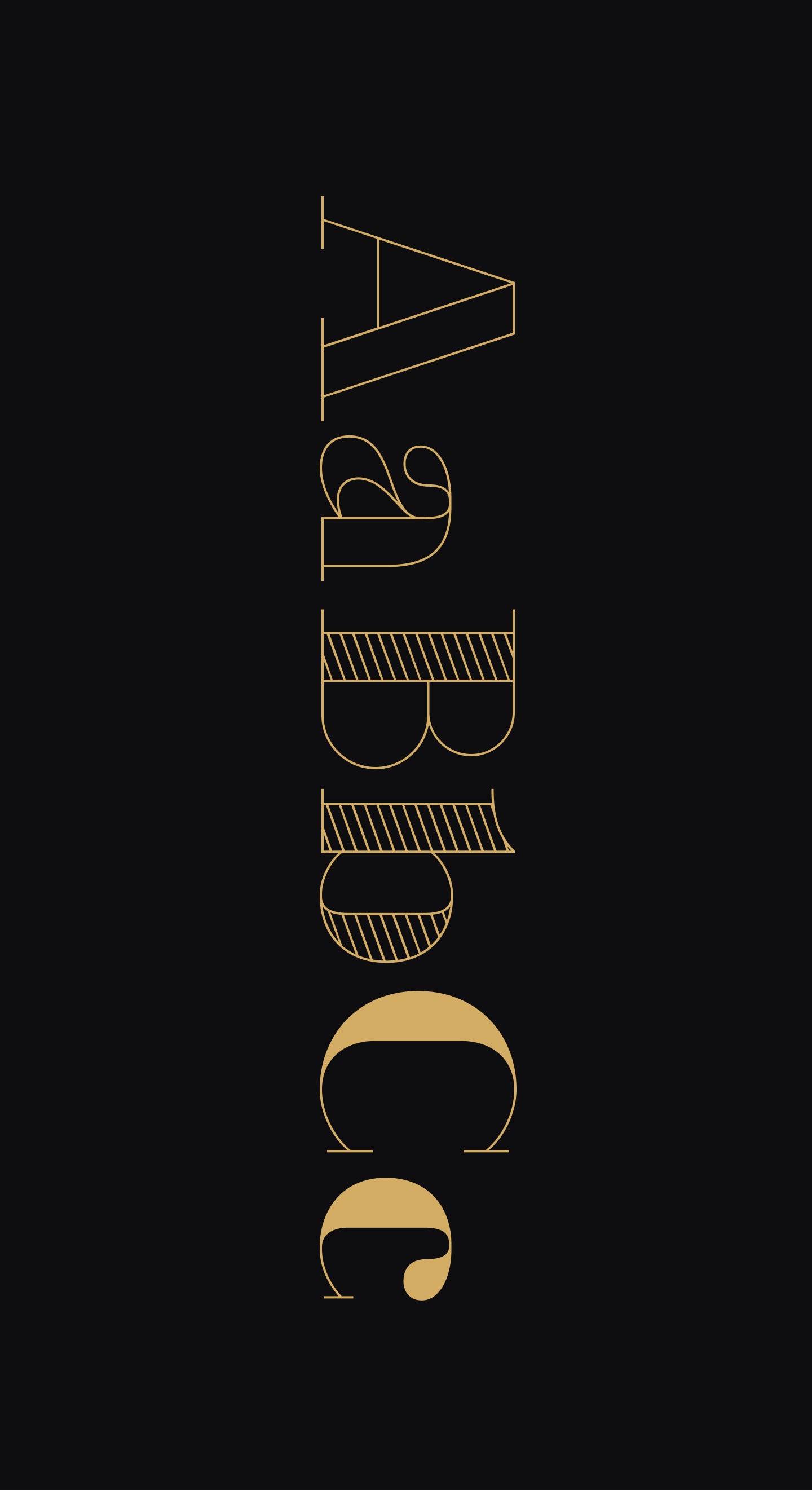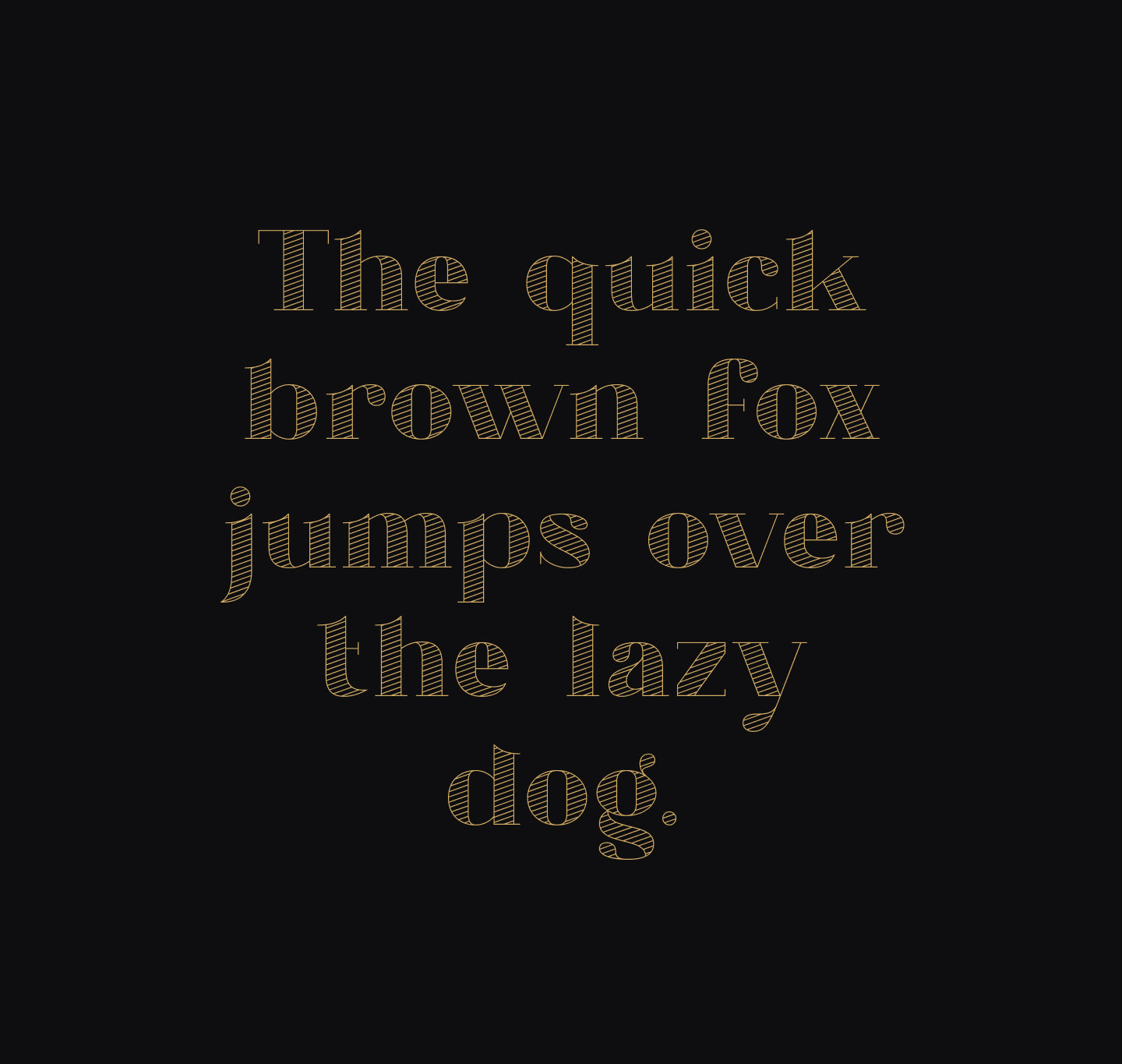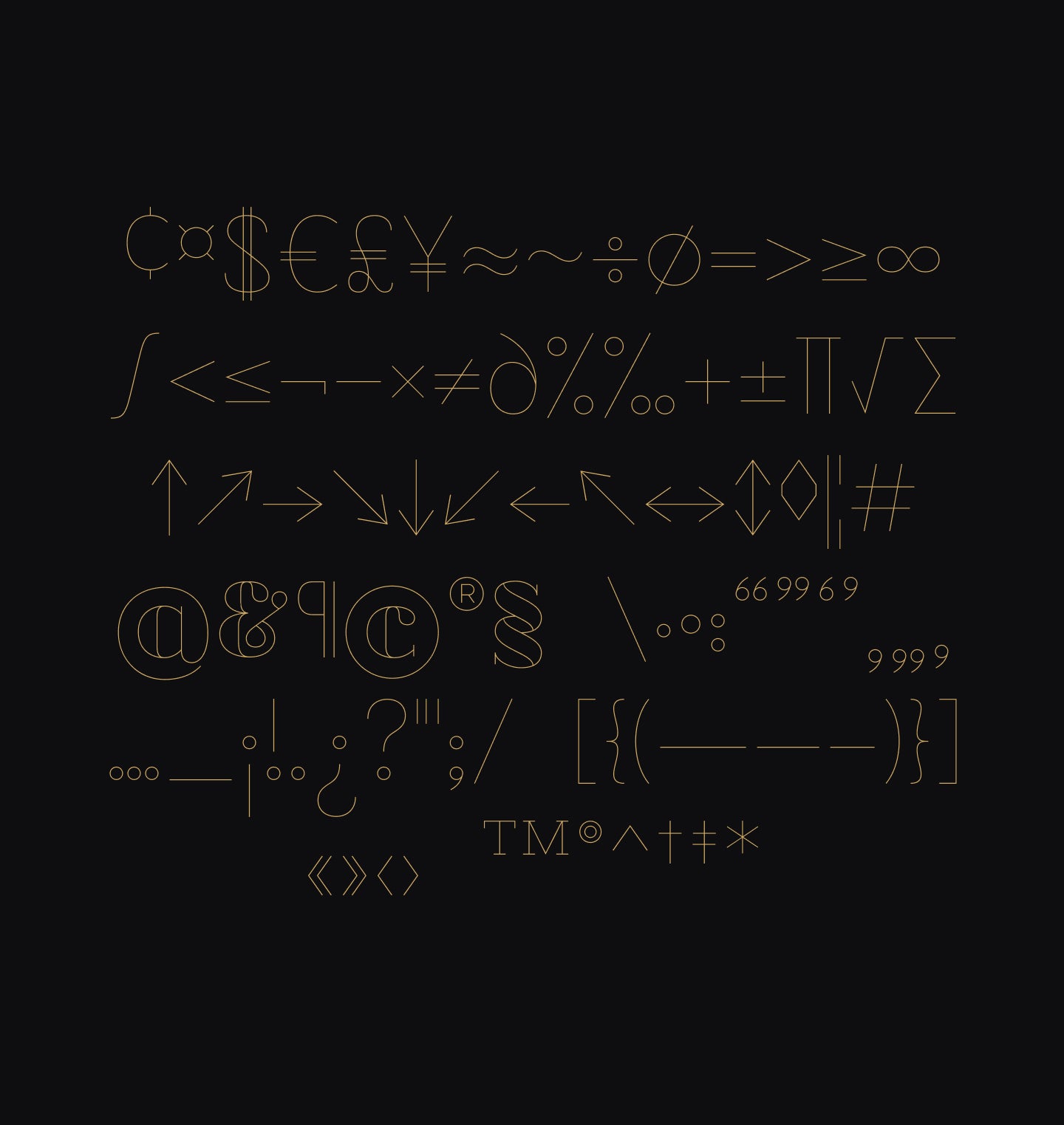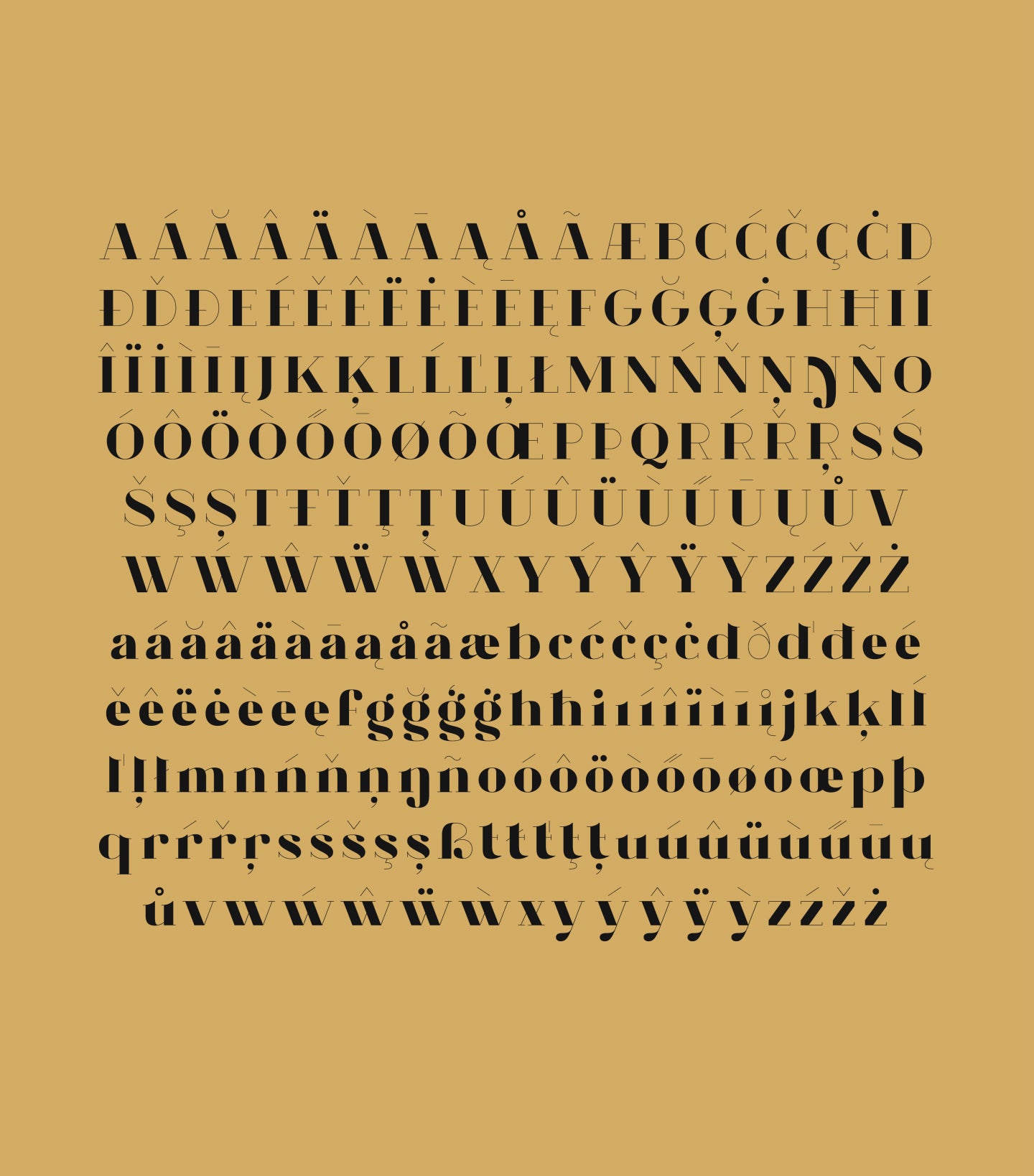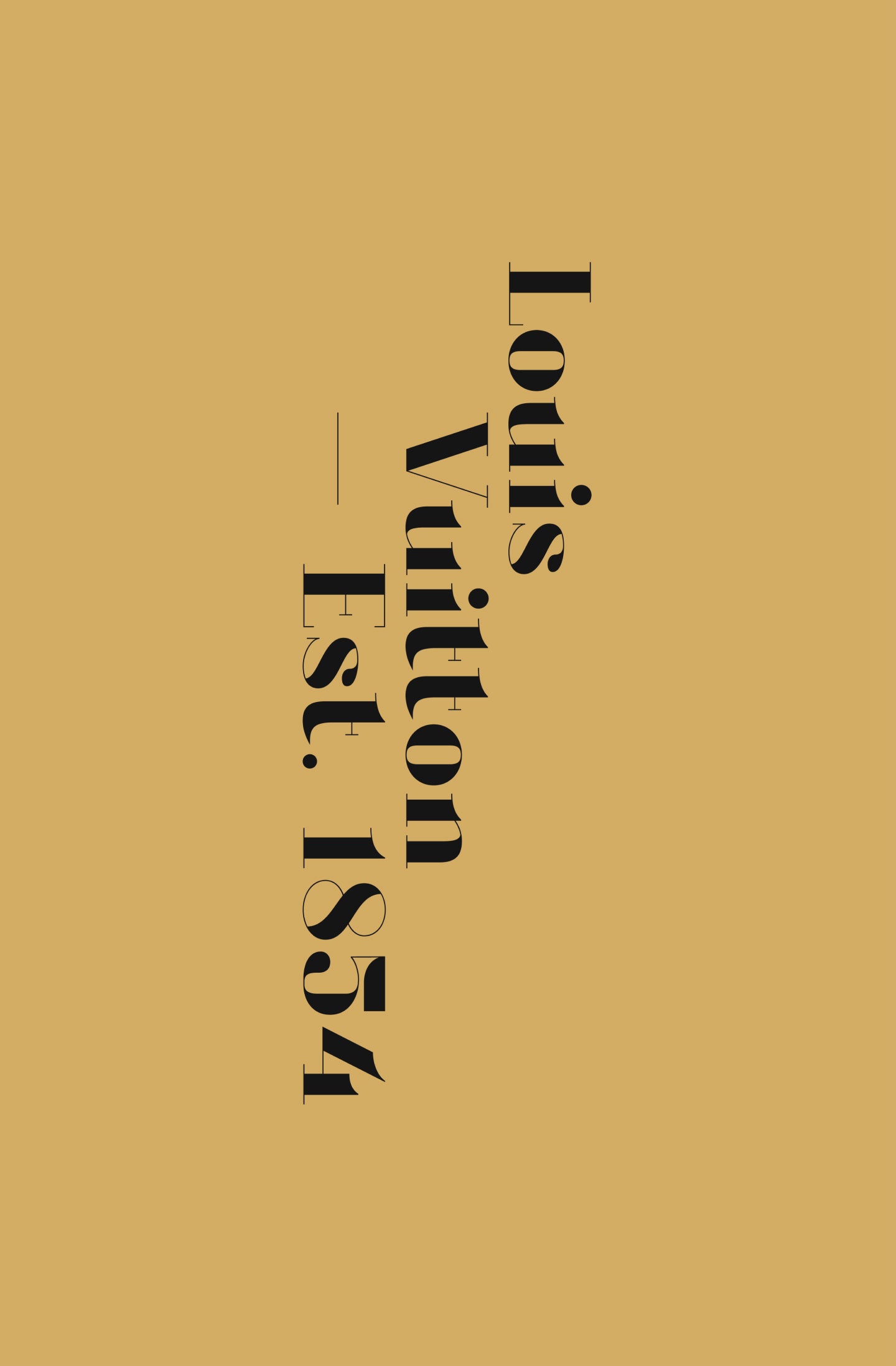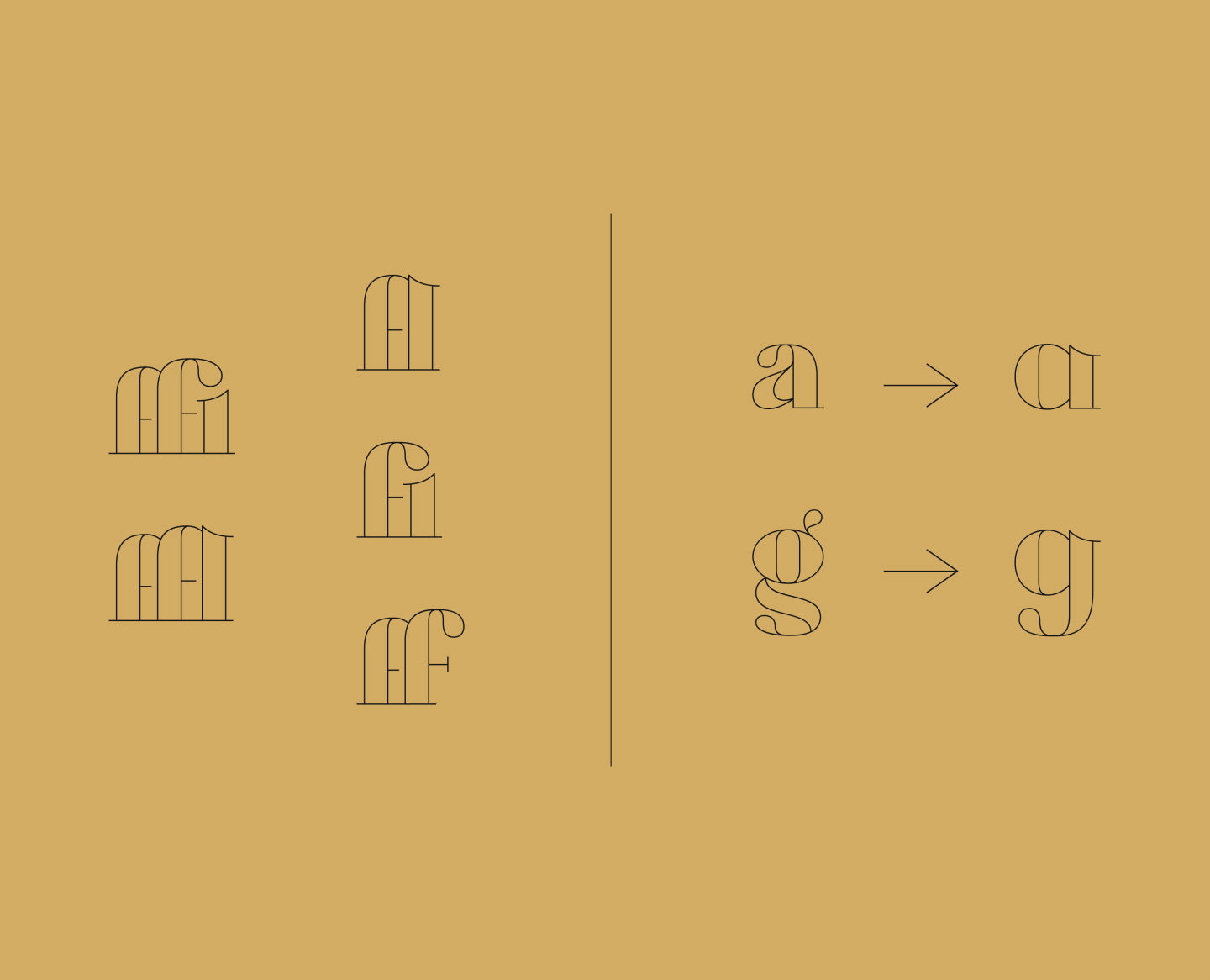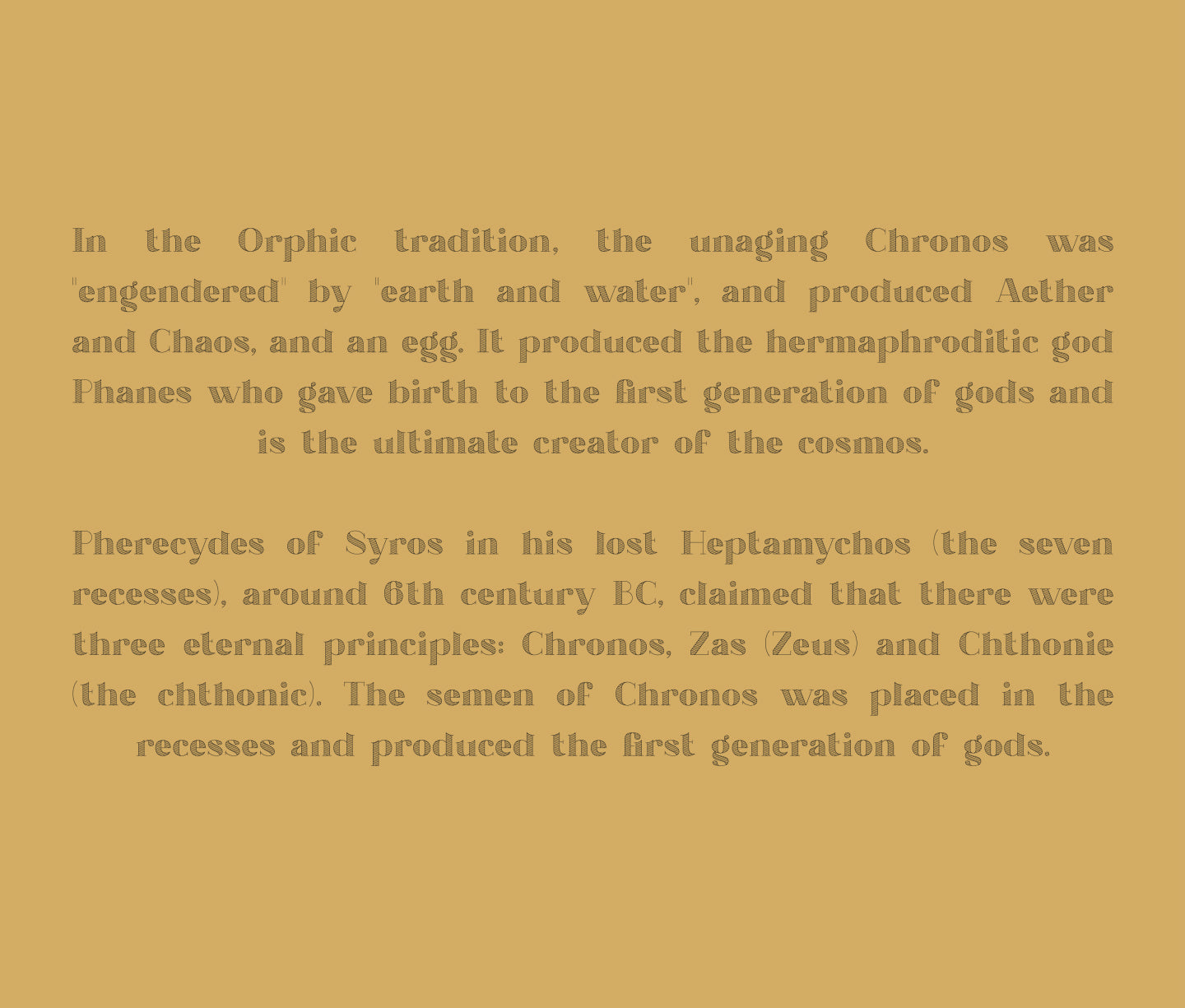
Chronos Serif
Stroked. Hatched. Filled. One typeface, endless sophistication.
Time-honored elegance, three ways.
Chronos Serif is an elegant display serif with three variants. Stroked, Hatched and Filled. Each style has its own unique flavor. Loaded with details and elaborate curves it will surely uplift your high end projects.